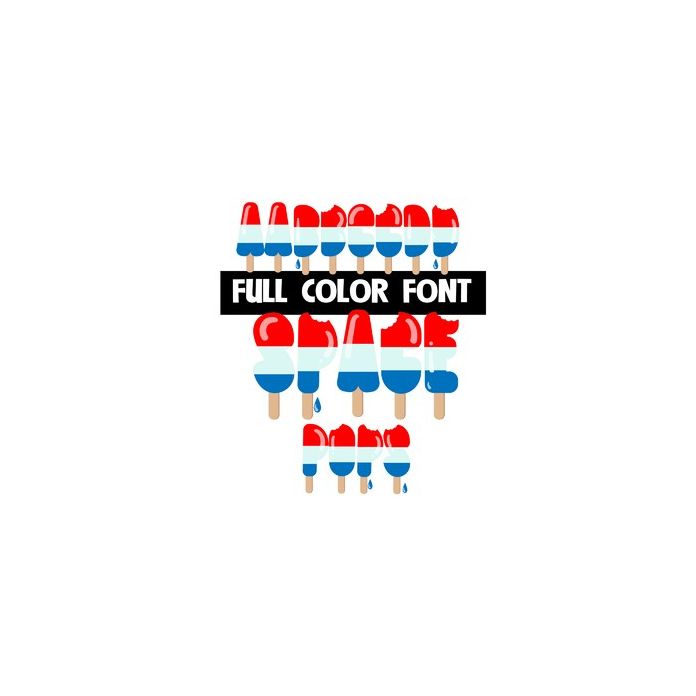
This full-color font features red, white, and blue popsicles. The lowercase has a bite out of each one. This font works best for titles, displays, posters and more. Please note color fonts will show as black in non compatible programs. This font type is compatible with Silhouette Studio.